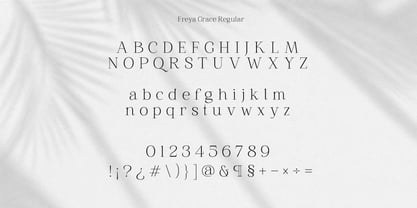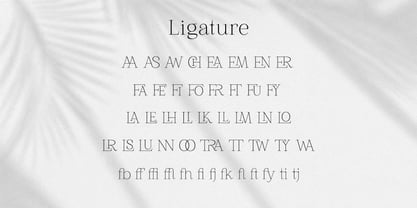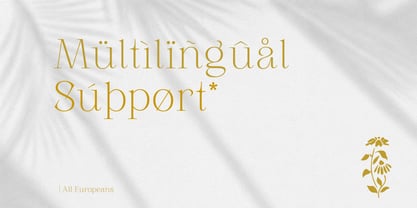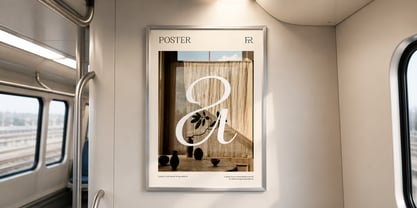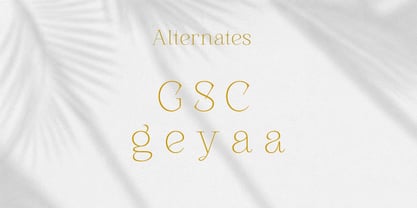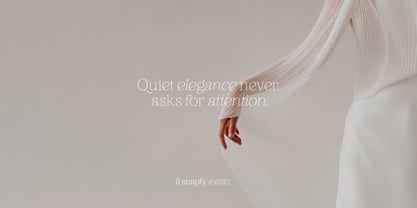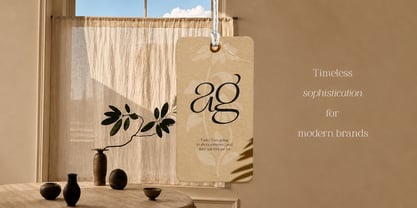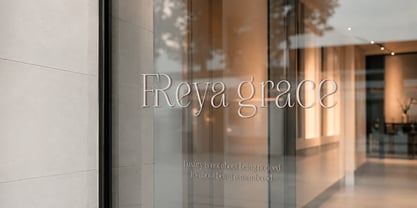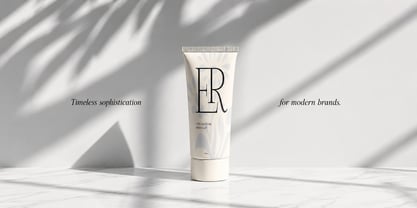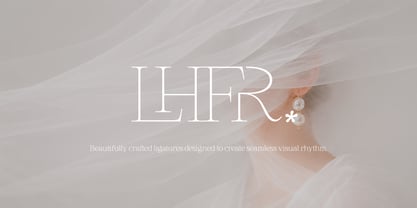
Freya Grace
Freya Grace is a contemporary serif typeface family inspired by modern luxury and feminine elegance. Combining classic serif traditions with clean modern refinement, it offers a sophisticated visual voice suitable for premium branding and editorial applications.
The family features Regular, Italic, Thin, and Thin Italic styles, allowing designers to create balanced typography systems with ease.
Ideal for fashion brands, beauty packaging, wedding design, magazines, logos, and high-end visual identities.
Freya Grace is designed to make every word feel graceful, confident, and memorable.